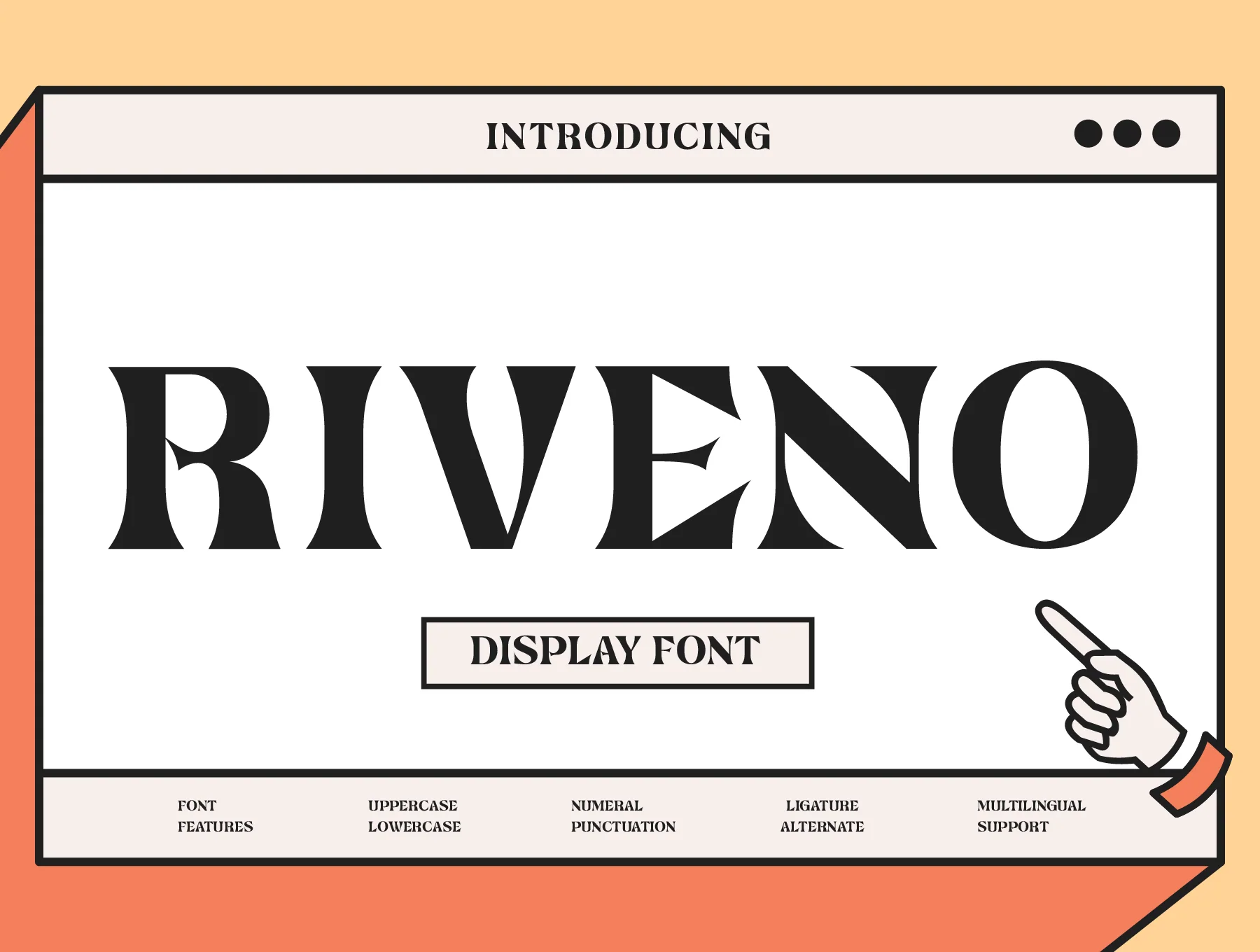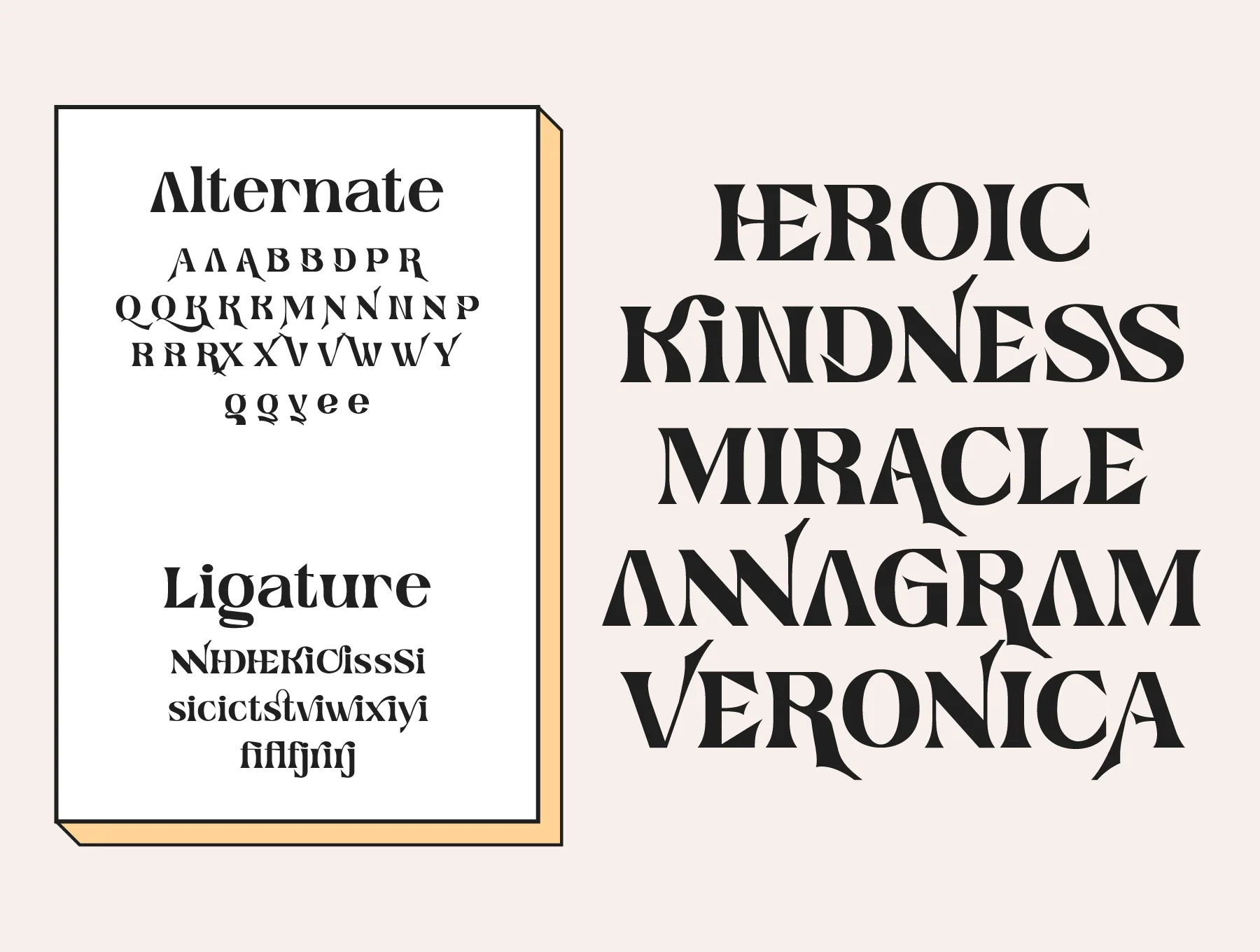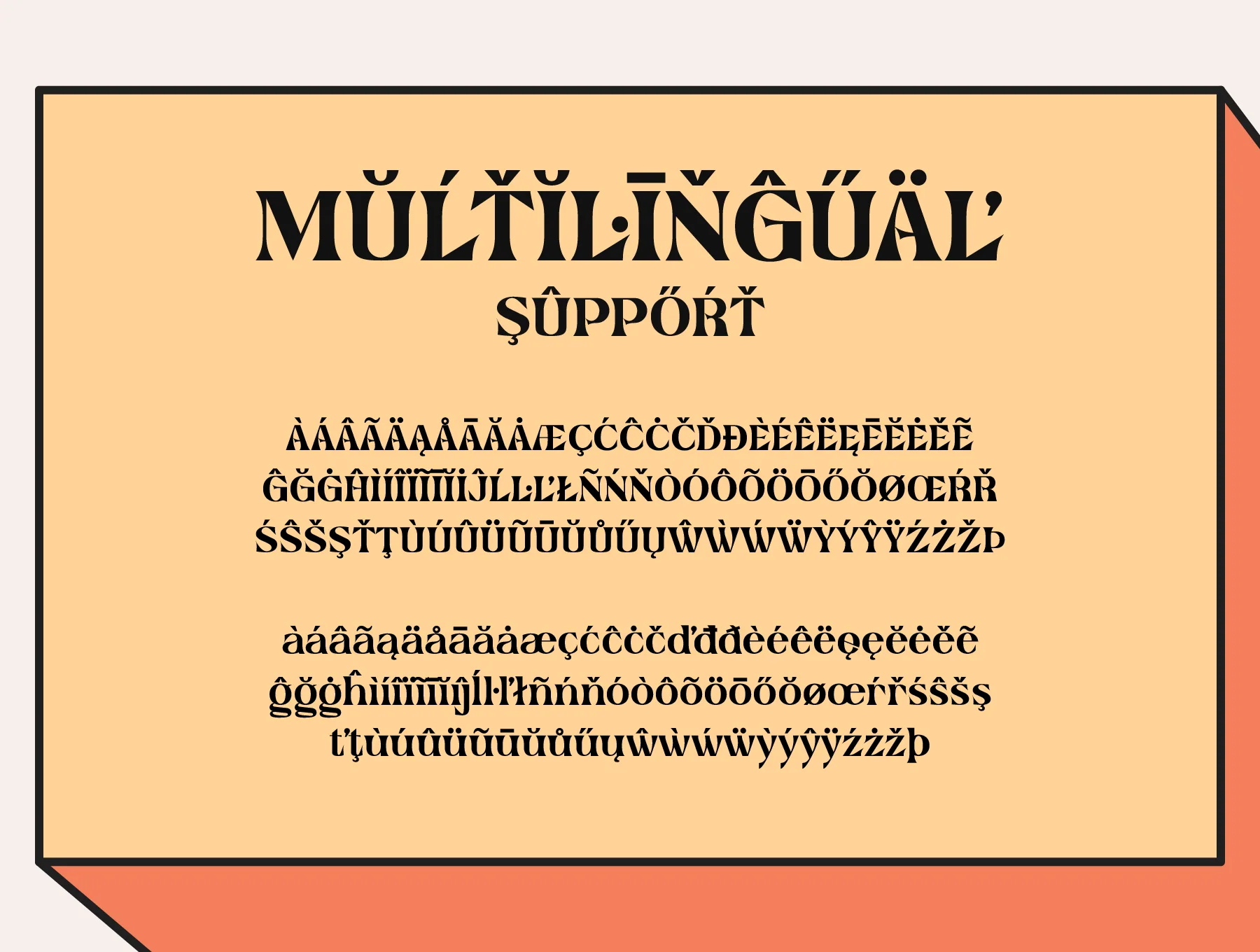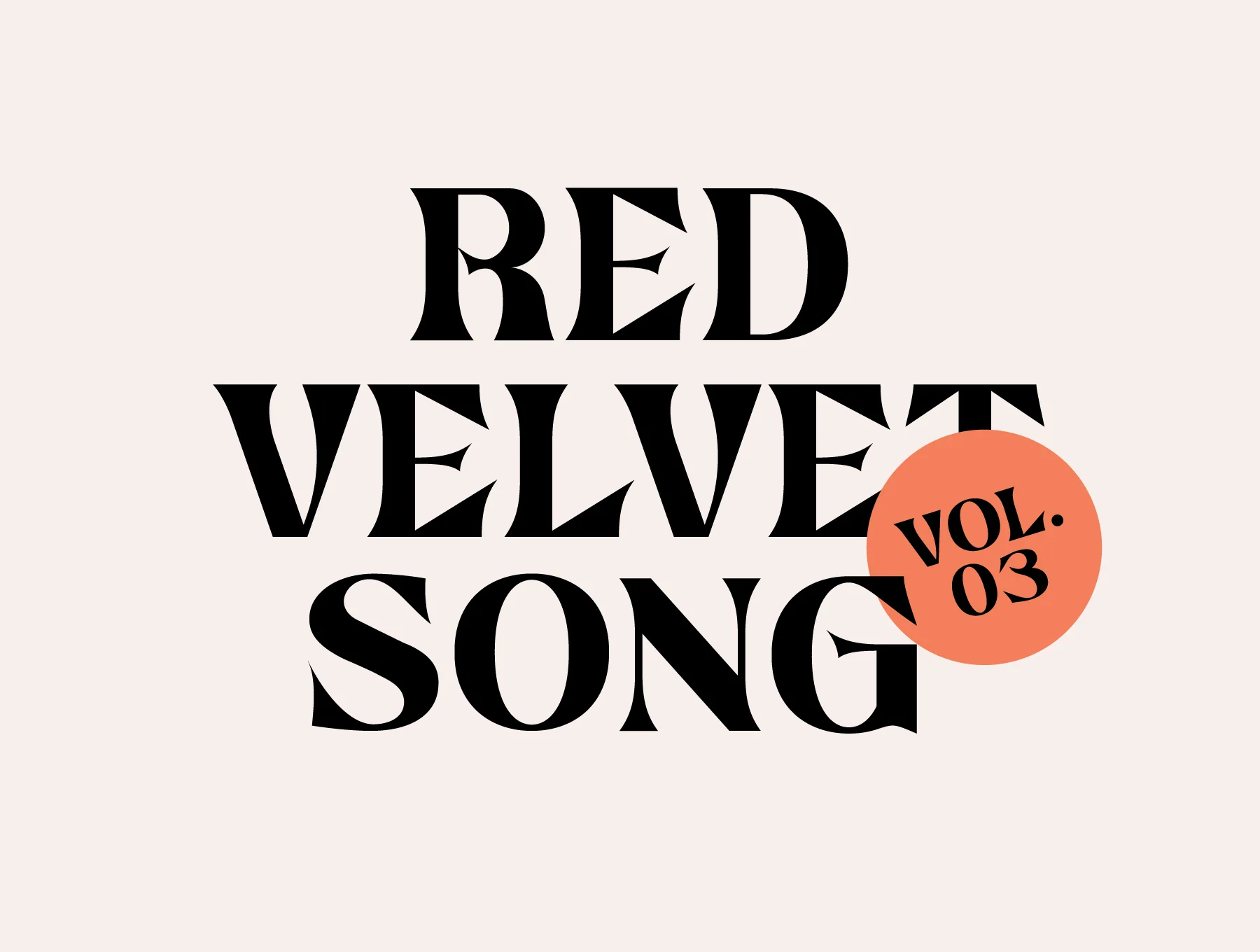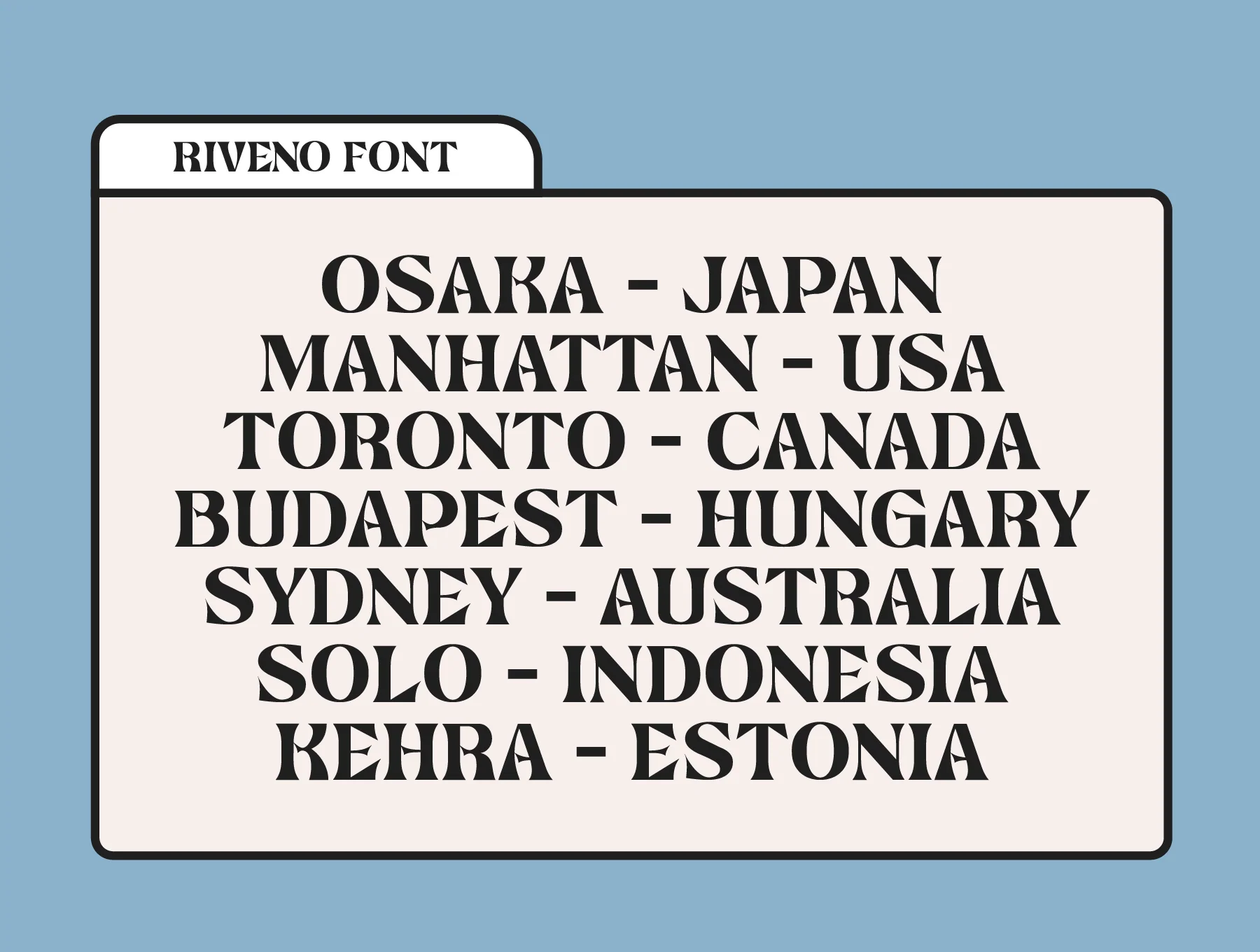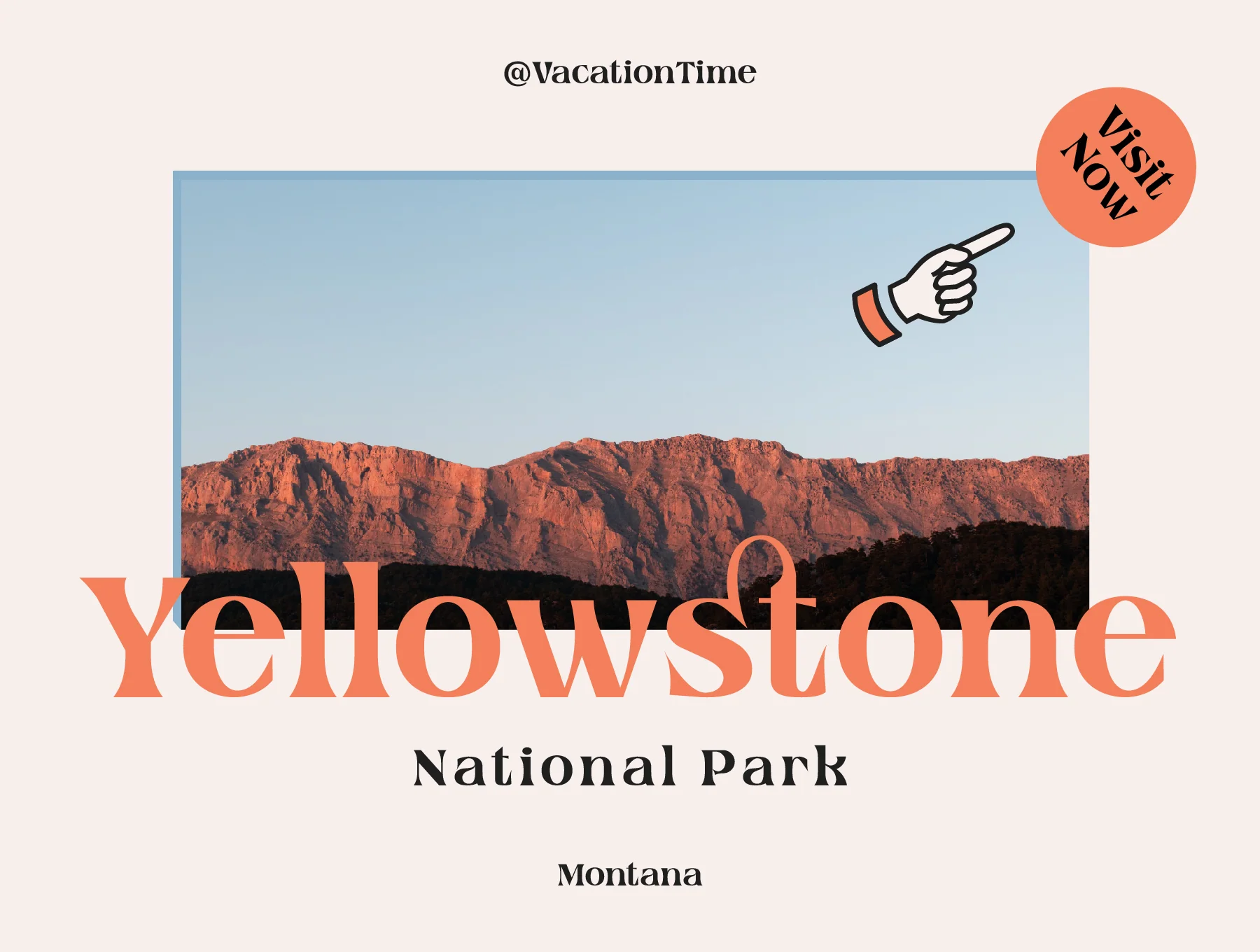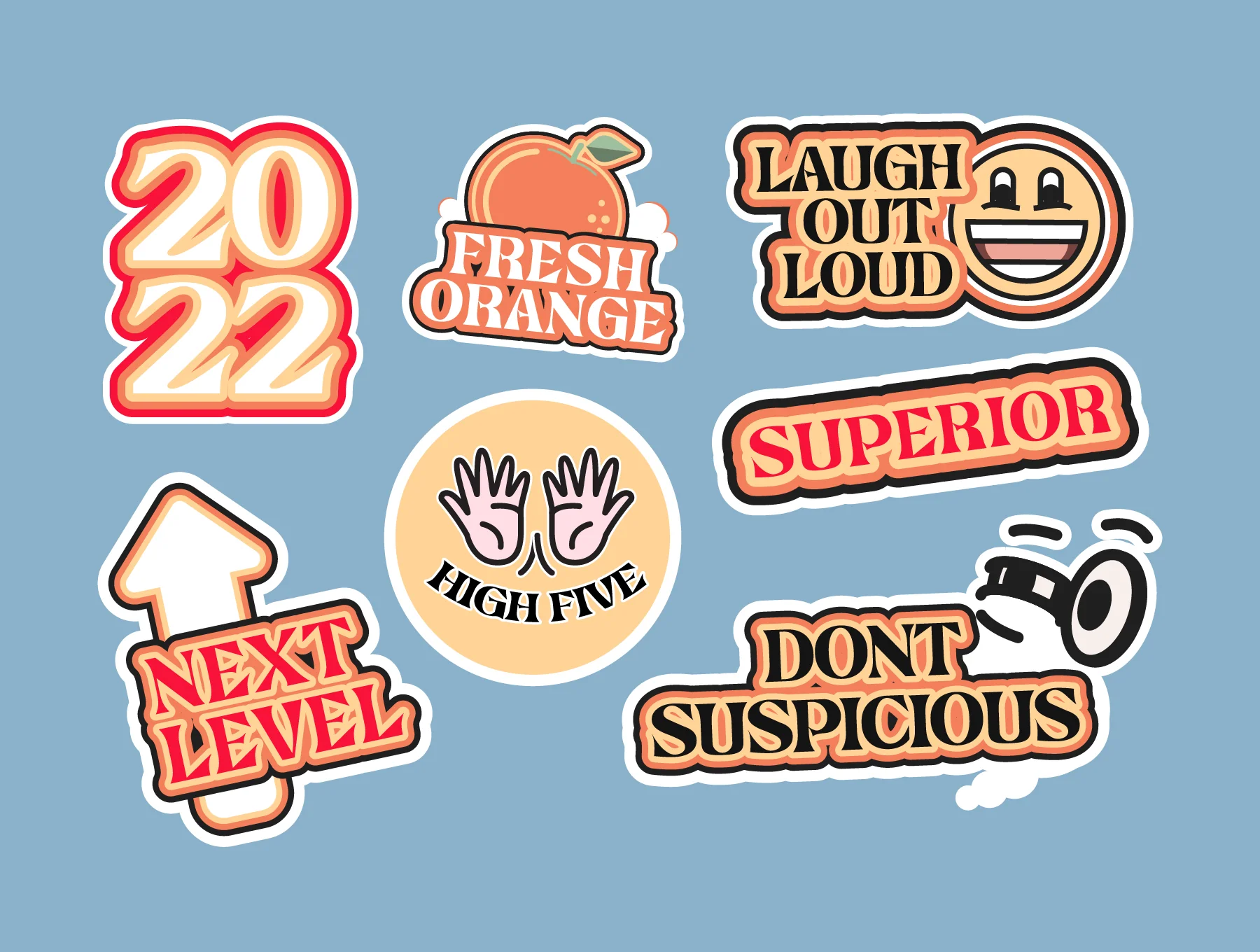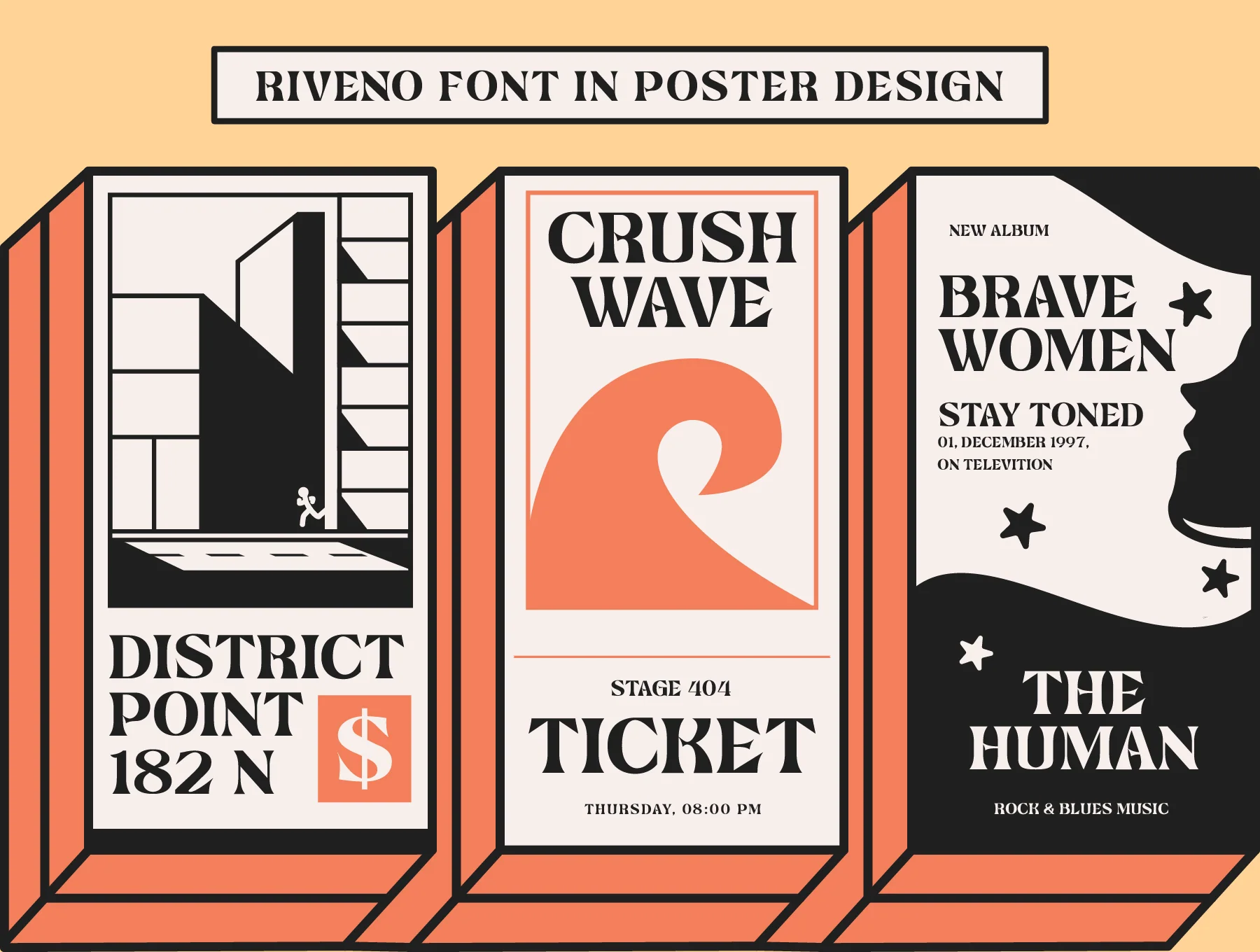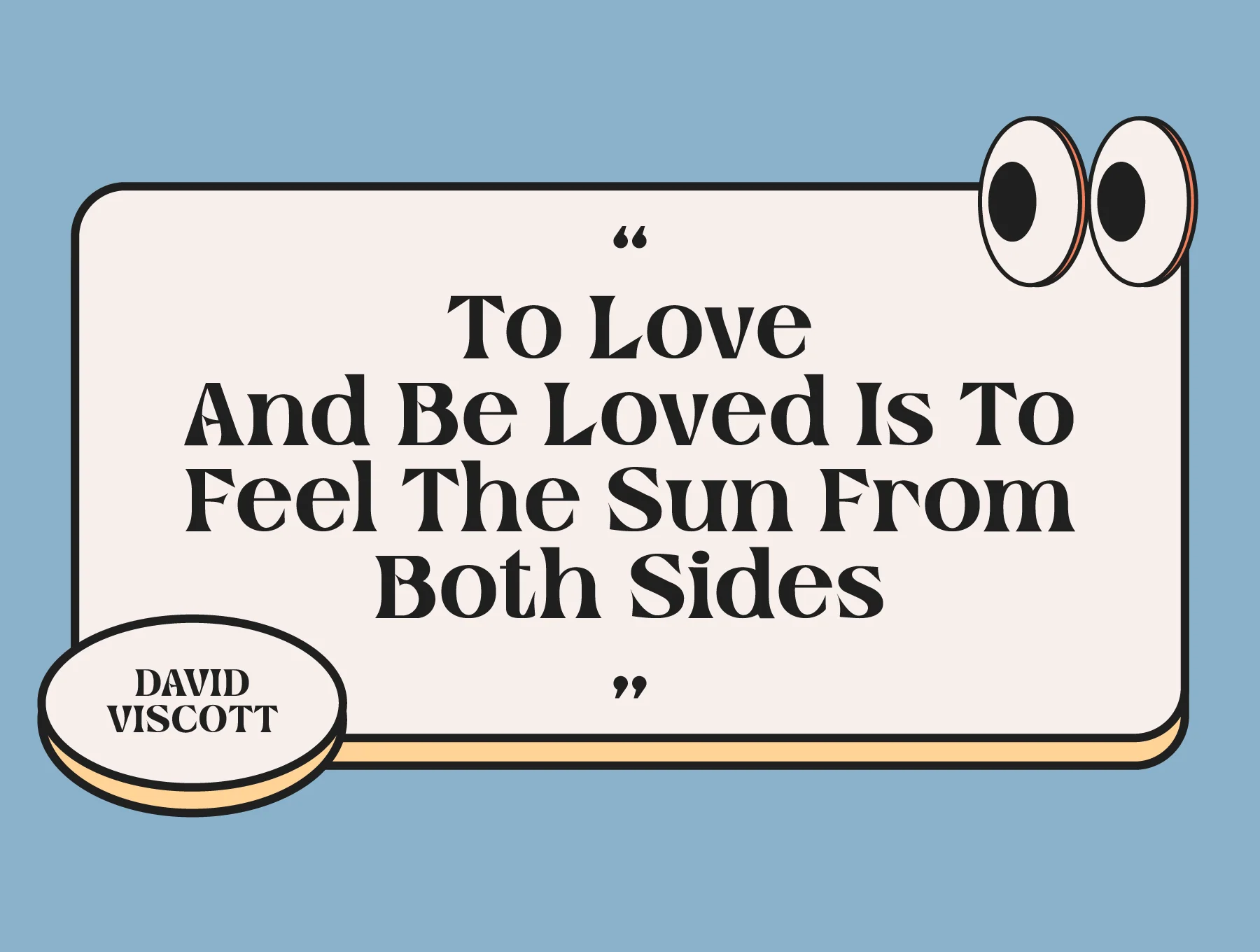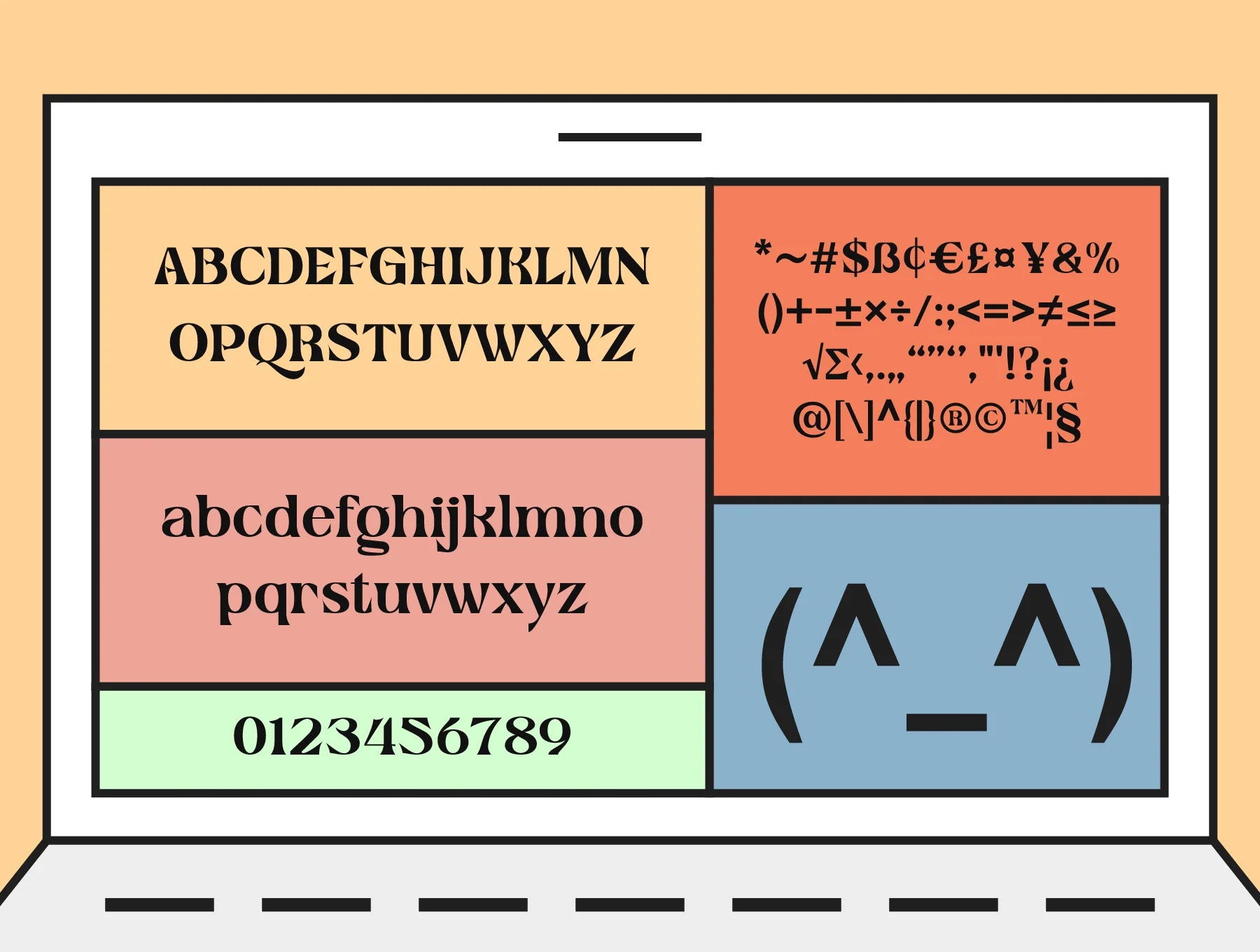
Riveno Font
Showcase typeface
Default character forms
Normal style
Digits and punctuation symbols
Variant glyphs and joined characters
Default character forms
Normal style
Digits and punctuation symbols
Variant glyphs and joined characters
Riveno is a sharp-edged display font suited for headlines, covers, posters, logos, and other creative projects. It includes uppercase and lowercase letters, numbers, punctuation, multilingual support, plus ligatures and alternates to give your typography a more stylish look.